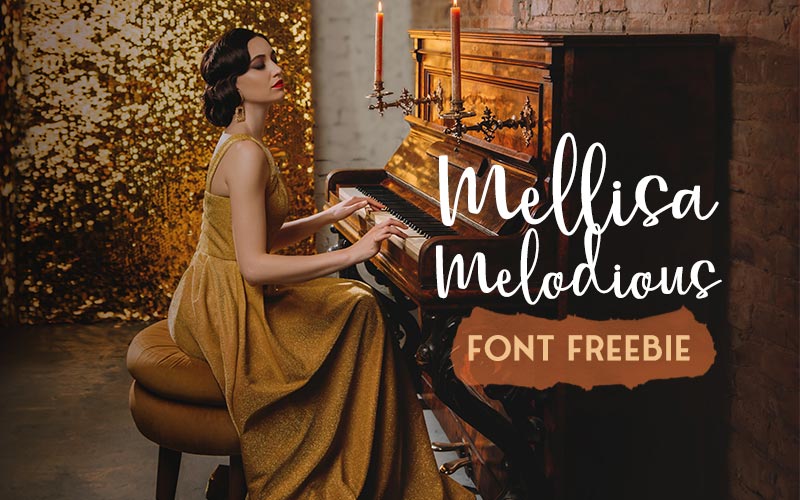
Overview
Mellisa Melodious is an elegant script font designed to bring harmony and sophistication to your projects. With smooth curves and refined strokes, it’s ideal for logos, invitations, posters, branding, and more. Best of all—this free font is available for immediate download and includes an Extended License for commercial use.
Key Features
• Elegant script with smooth, flowing curves
• Sophisticated, versatile styling suitable for a wide range of design projects
• Works well for both print and digital applications (logos, invitations, posters, social media, packaging, etc.)